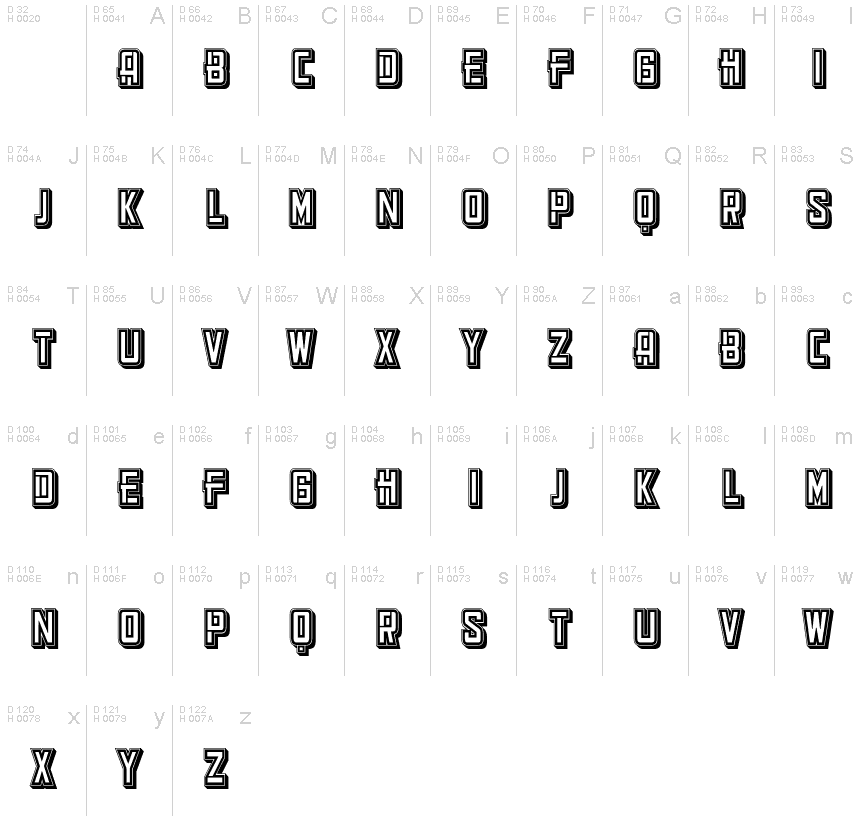
Chinois Regular
Chinois is a stunning display font designed by Vladimir Nikolic. With its bold weight and extra-condensed width, this font is perfect for projects that demand attention. Its unique style and character make it ideal for branding, packaging, headlines, posters, and so much more. Whether you're looking to create a bold statement or add some flair to your designs, Chinois is the perfect choice. Let this font bring your creative vision to life and make your projects stand out from the crowd!